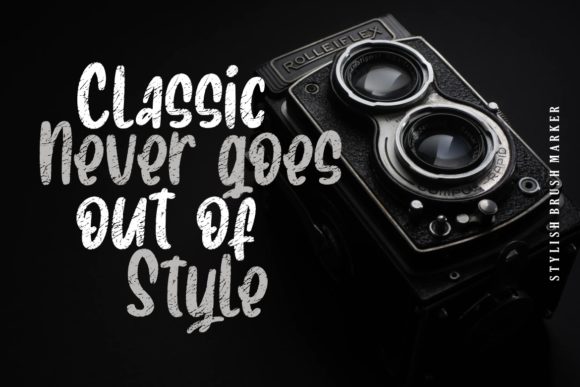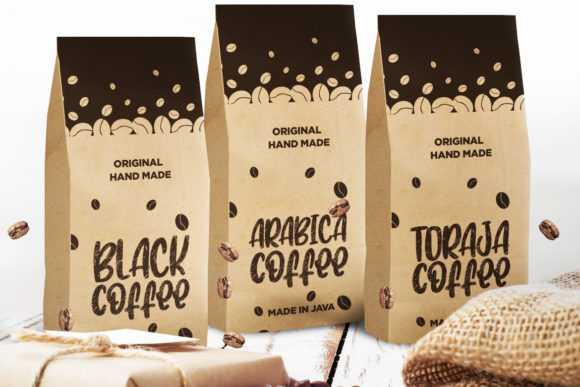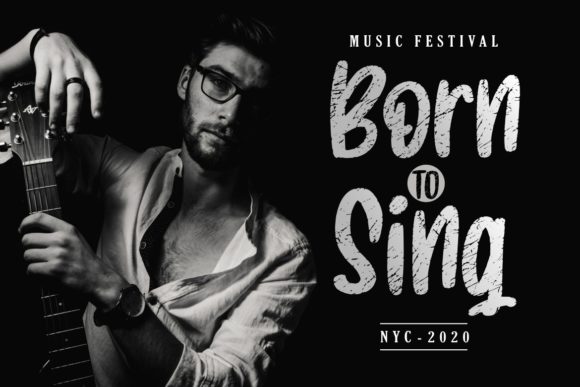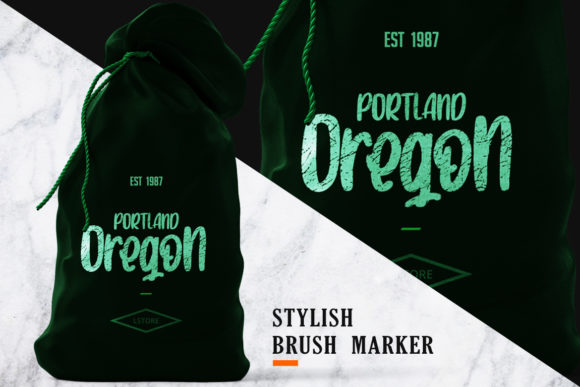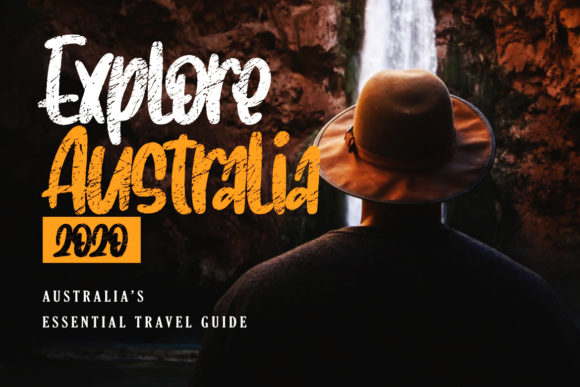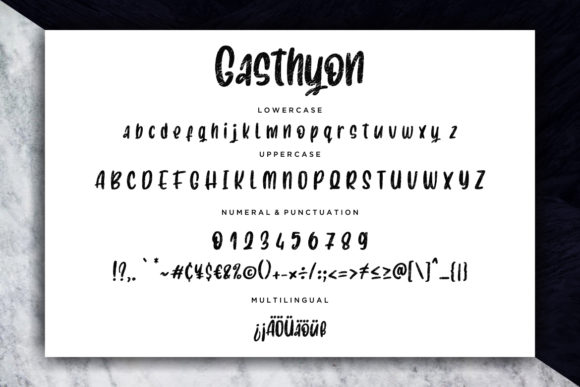
Introduction to Gasthyon Font
Gasthyon is a casual, fun display font, created by using a brush pen.
Clean and a little bit quirky, this font is the perfect fit for all of your logos, branding, social media, and crafty DIY projects .
Gasthyon Font offers exceptional quality and versatility, making it a valuable addition to your design toolkit. Whether you’re creating for personal projects or commercial use, Gasthyon Font delivers professional results.